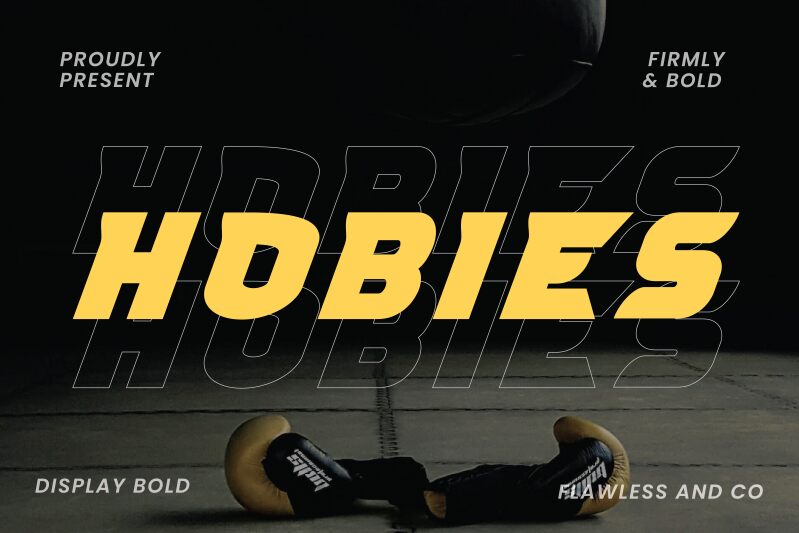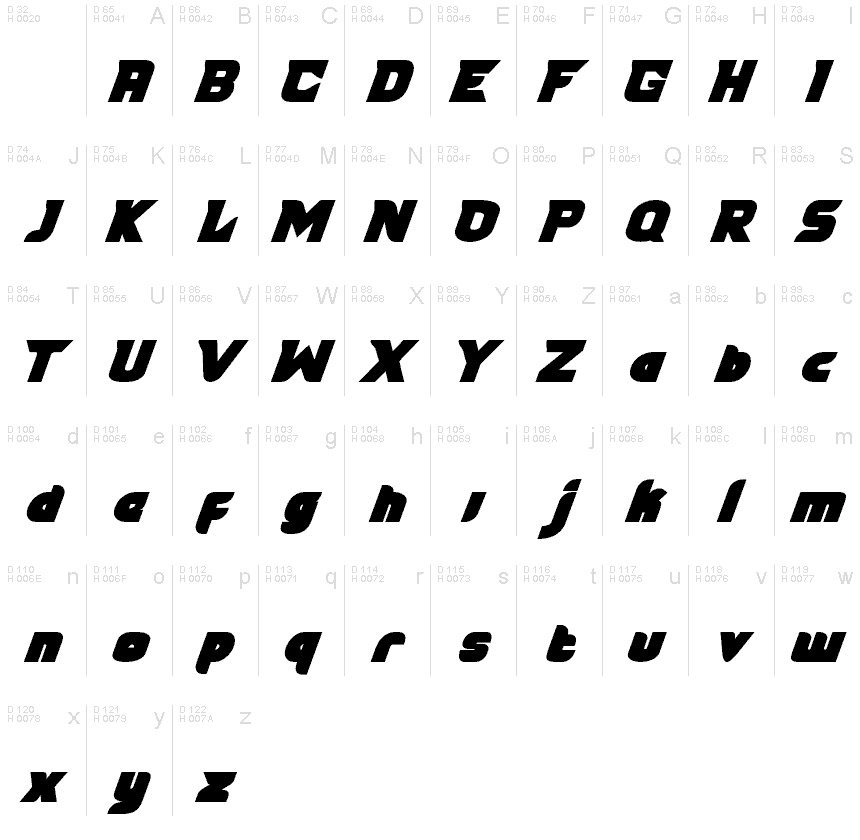
HOBIES Regular
Hobies font by Achmad Yani of Flawless and Co is a bold display typeface with vintage vibes that packs lots of energy! While it looks retro, it has this visual strength and impact that is still relevant in today’s time. Movement is conveyed through the style that feels sporty, strong, striking, and impactful. The free techno display font uniqueness forms the basis to make your message noticeable wherever you use Hobies.
Utilize Hobies in advertising posters for clubs, concerts, theaters, events or festivals with similar themes. The same applies to flyers for bands or movies poster artworks. Another application would be fancy t-shirt designs for music bands or sports teams of your choice!